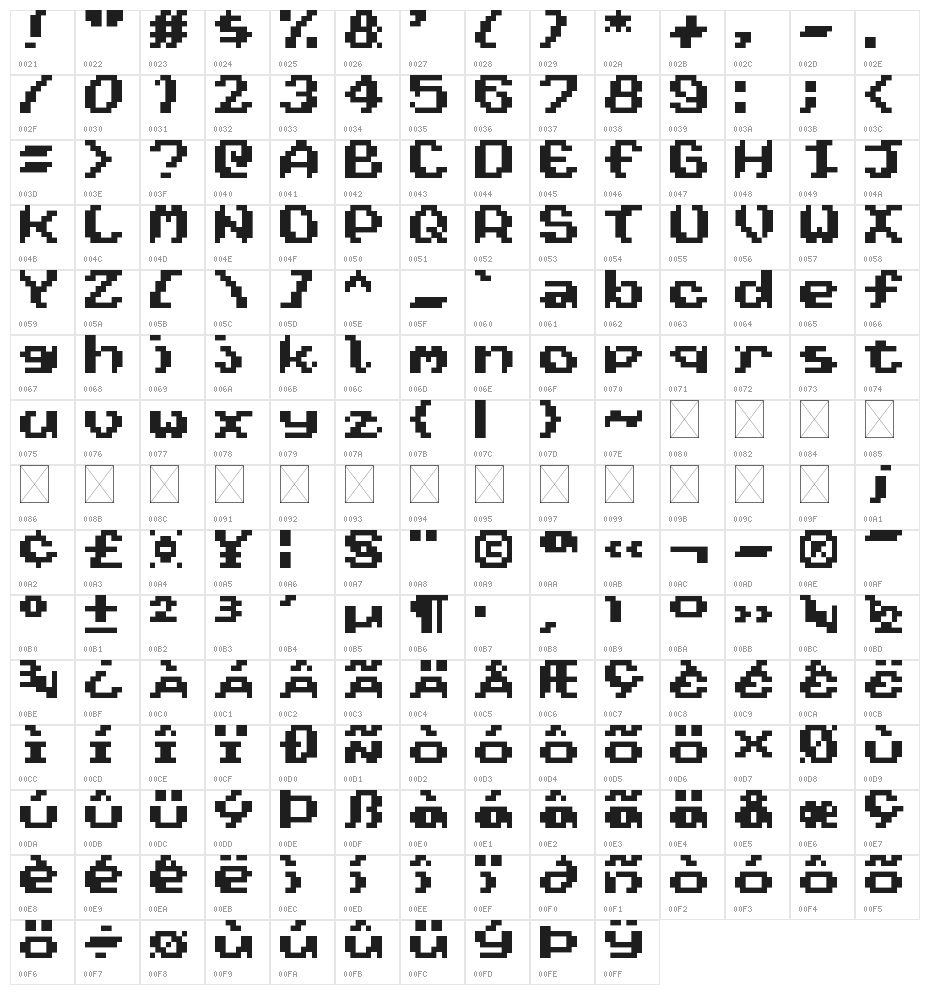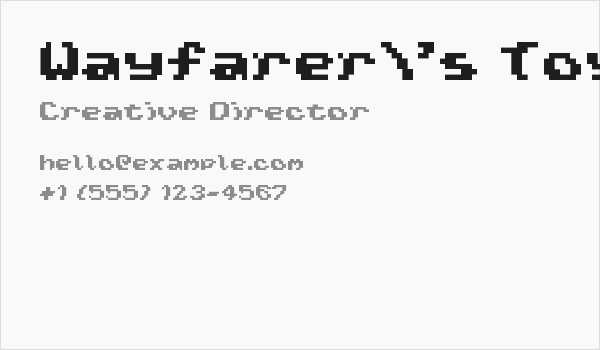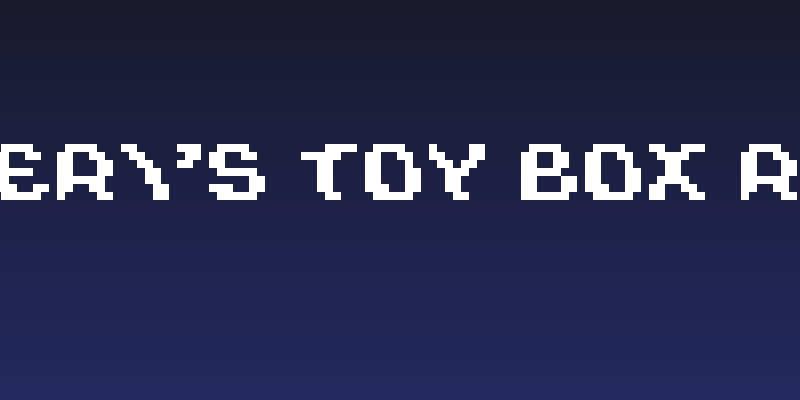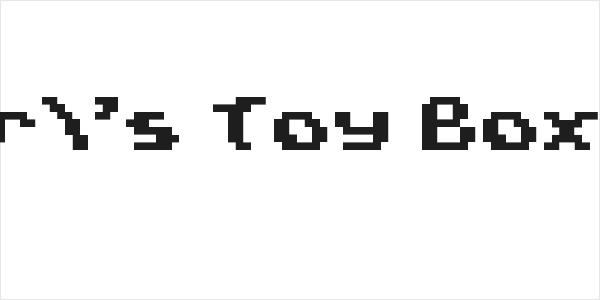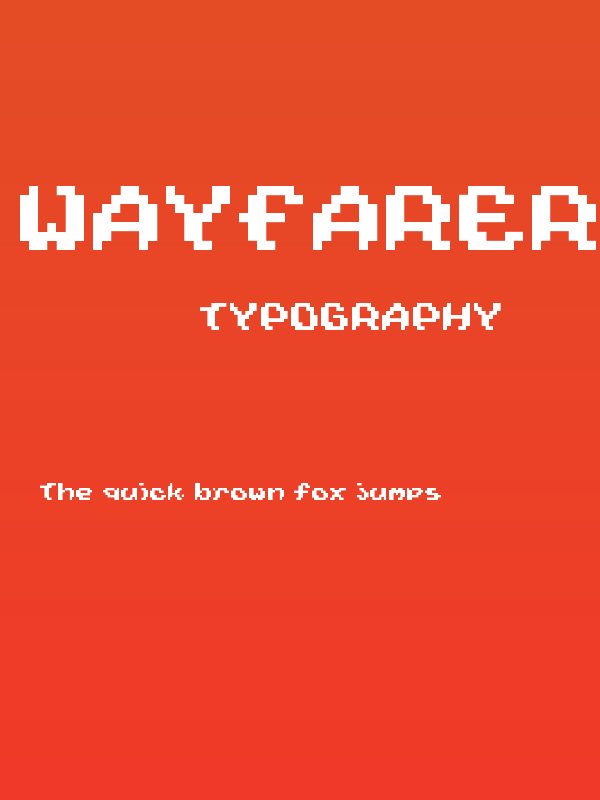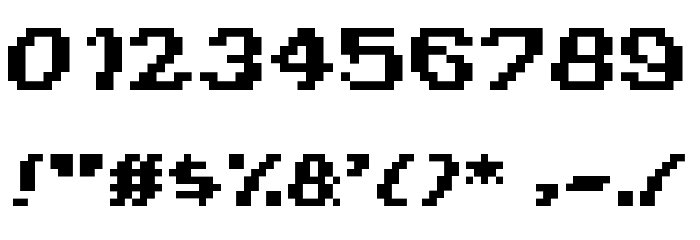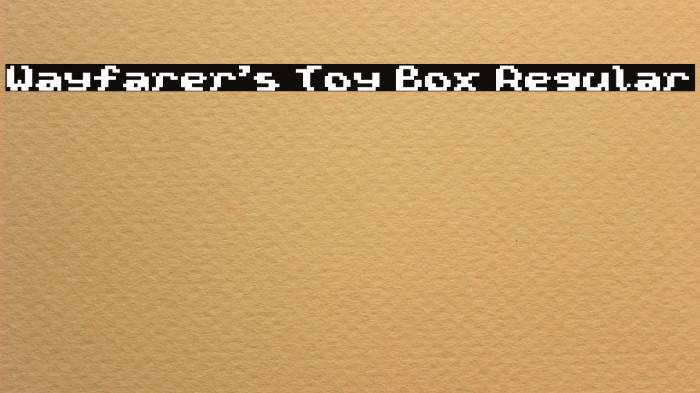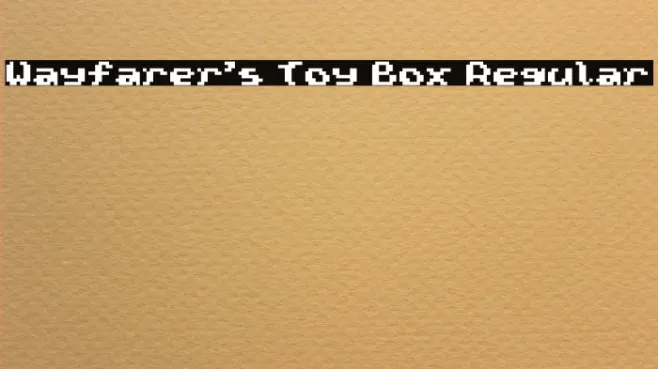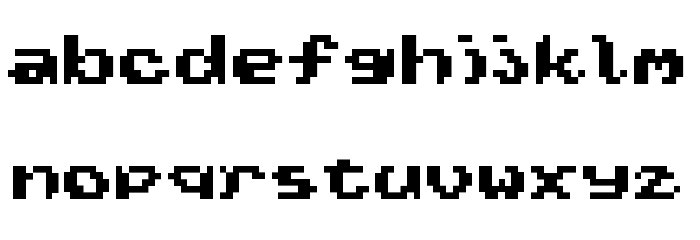
Wayfarer's Toy Box Regular Font
Wayfarer's Toy Box Regular Description
This font features a playful and pixelated design, reminiscent of retro video games. Each character is constructed with a blocky, pixel-like appearance, giving it a nostalgic and digital feel. The uppercase and lowercase letters maintain a consistent height, contributing to a uniform look. Numbers and special characters follow the same pixelated style, ensuring cohesion across all glyphs. The font's unique style makes it stand out, ideal for projects that aim to evoke a sense of fun and nostalgia. Its bold and chunky form ensures readability while adding a distinctive character to any design.
| Overall Style | Retro, Playful |
| Proposed Projects | Ideal for video game designs, retro-themed posters, children's books, and playful branding. |